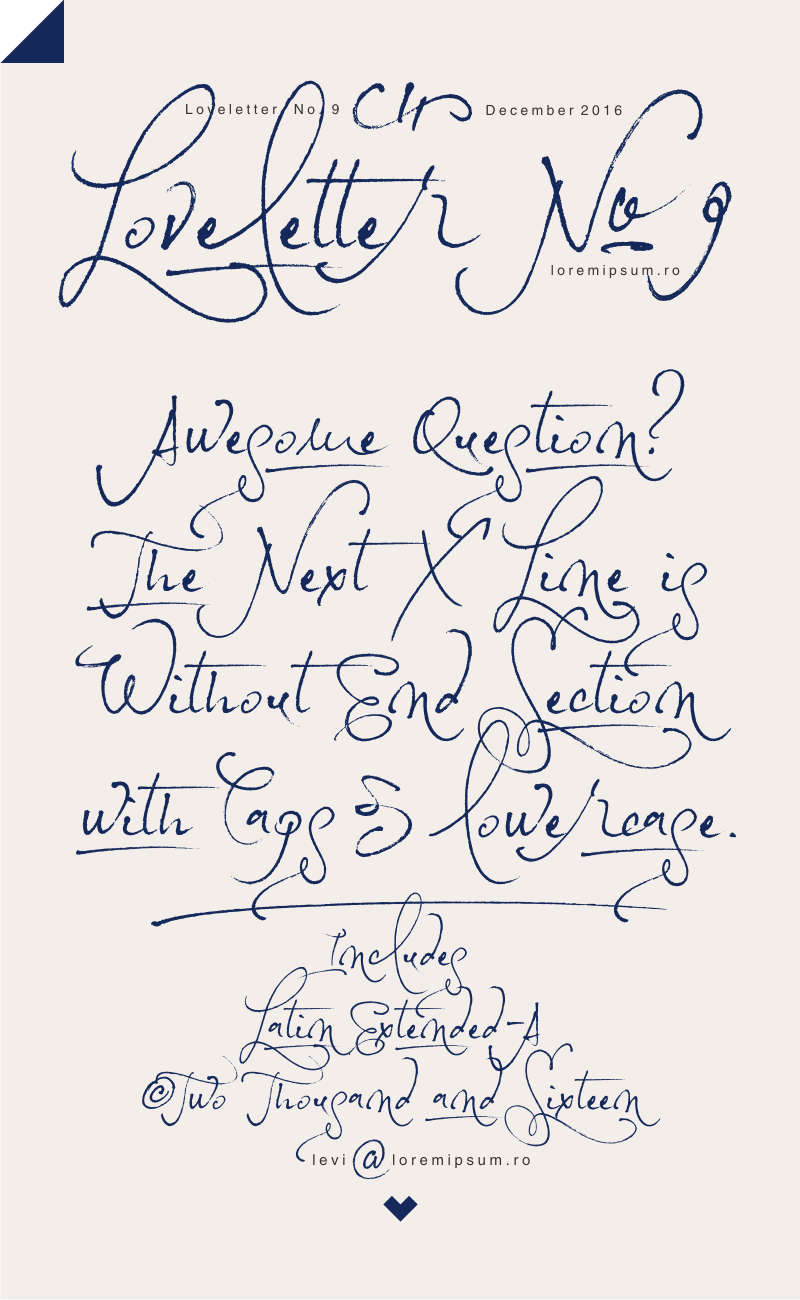
Font name: | Loveletter No. 9 |
Author: | Levi Szekeres |
Note by Levi Szekeres | |
Loveletter No. 9 was made for the love of letters, of course. To underline words use the Underscore after the word or after three/four letters (width of the underline), for example "The_", "Lovelet_ter", "Question_", just for starters. The width of the uppercase letters are set to be used as capitals, for full caps some extra space may be needed, otherwise words will look like long monograms. Some of the letter pairings are based on heavy kernings, so it's better the font to be used with softwares that include this feature. Even with all the love around the font is not free, to use it in commercial works please contact me or go to loremipsum.ro. Thanks, Levi |